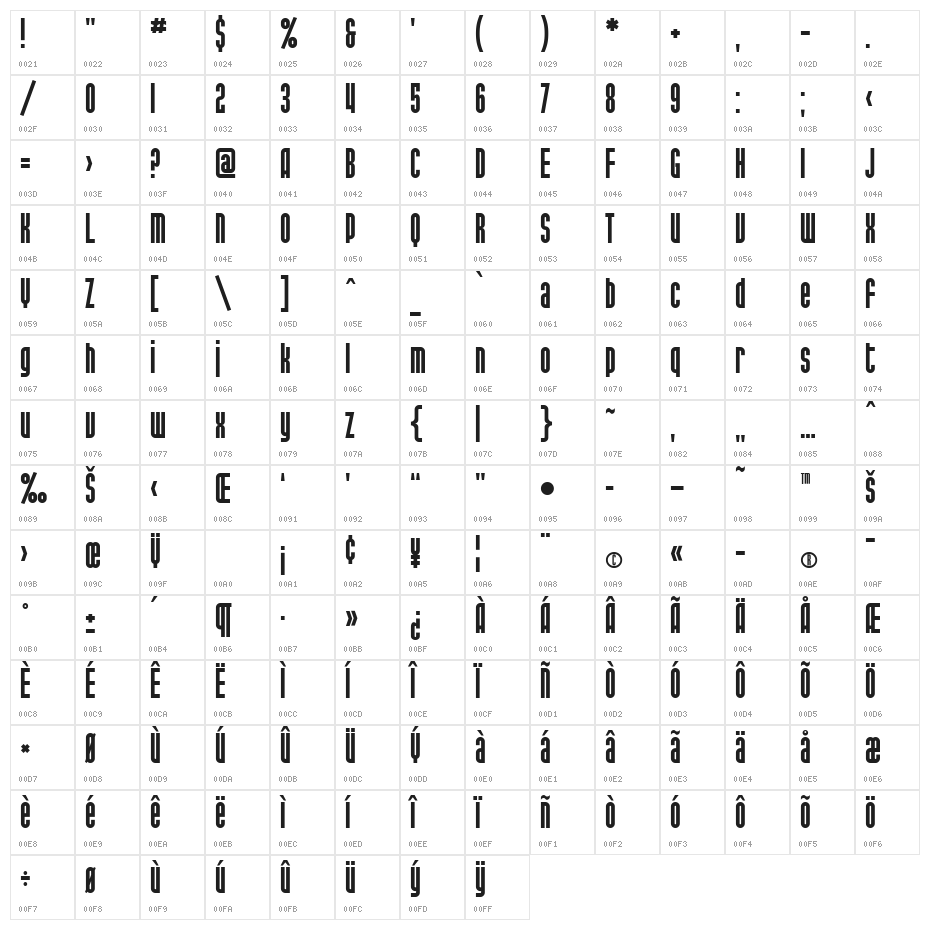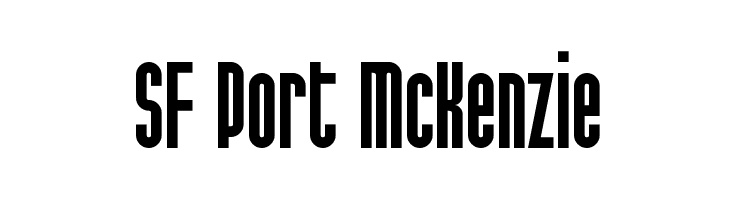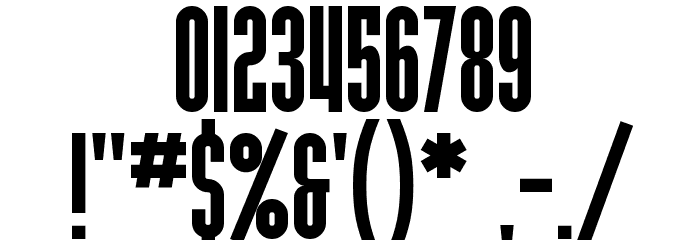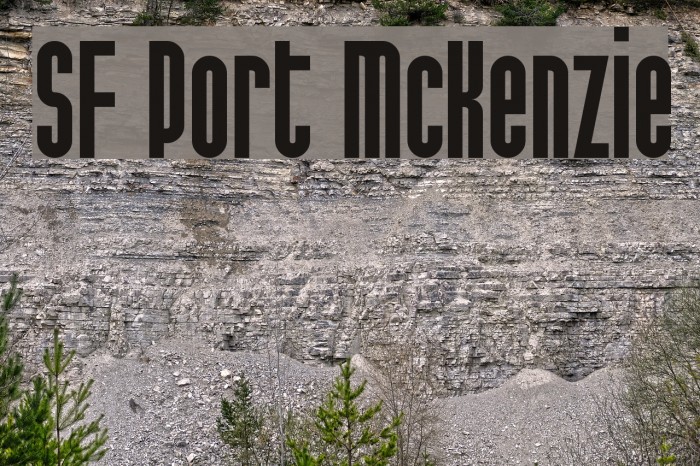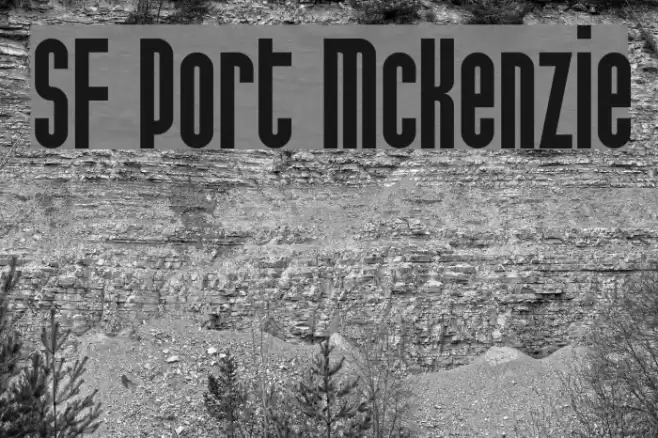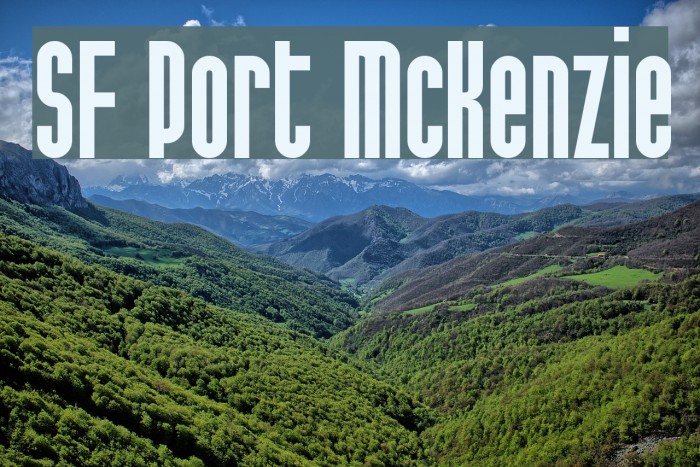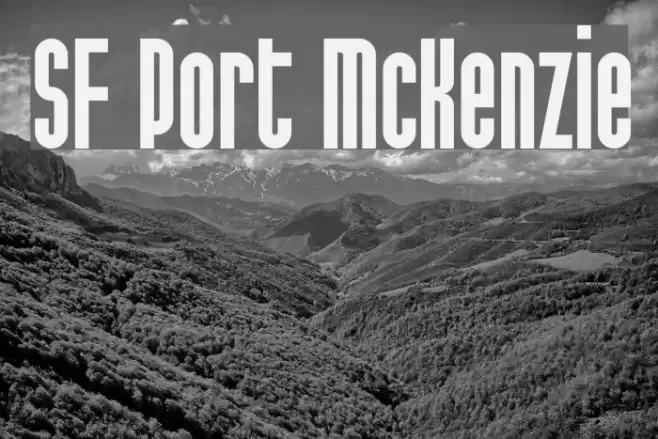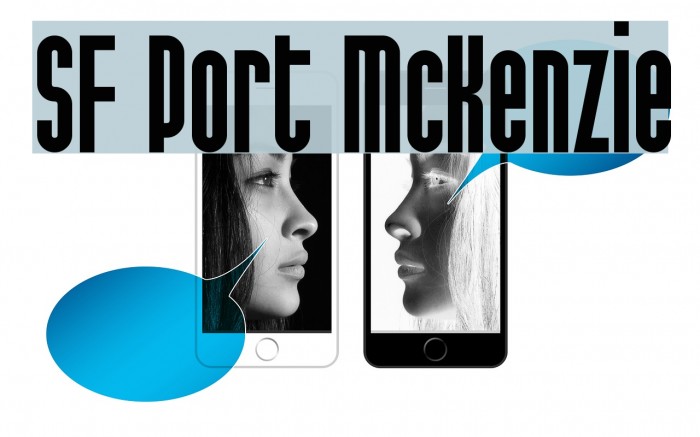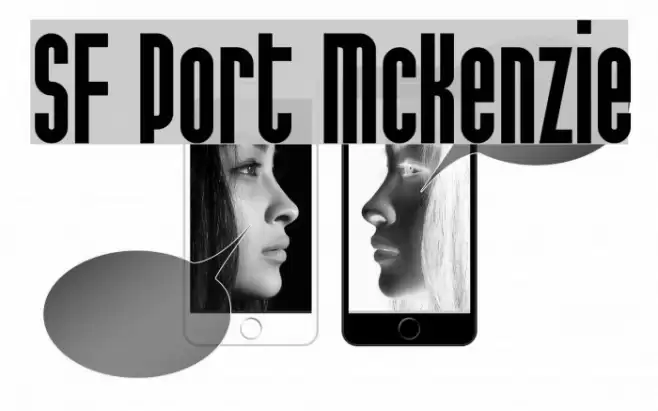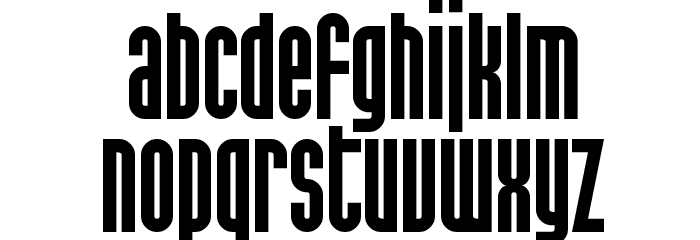
SF Port McKenzie Font
SF Port McKenzie Description
This font features a bold and condensed style with a strong presence. The uppercase letters are tall and narrow, giving a sense of height and authority, while the lowercase letters maintain a consistent width, ensuring readability. The numerals are similarly styled, matching the overall aesthetic of the alphabet. The special characters are designed to complement the boldness of the letters, making them suitable for impactful statements. The font's design is modern and clean, with a slight vintage touch due to its condensed nature, making it versatile for various design needs.
| Proposed Projects | Ideal for posters, headlines, branding, and any project requiring a strong visual impact. |